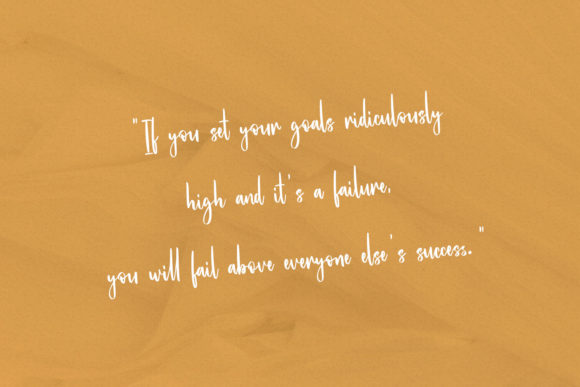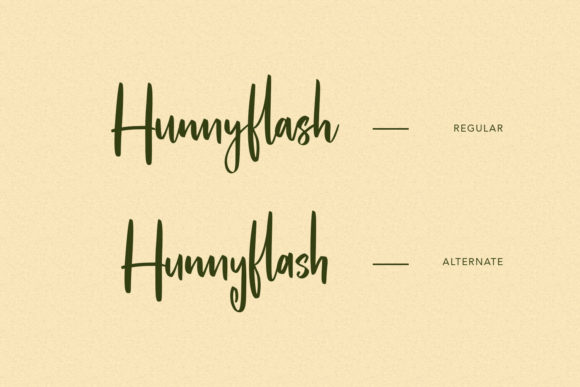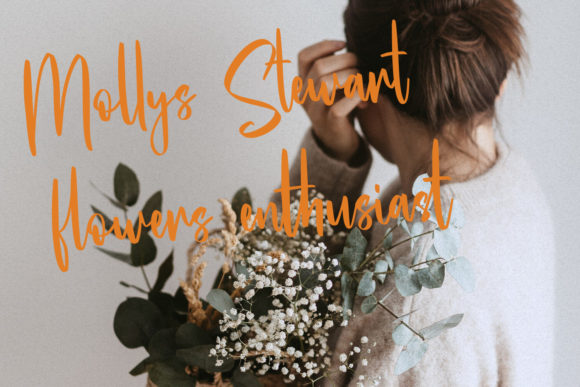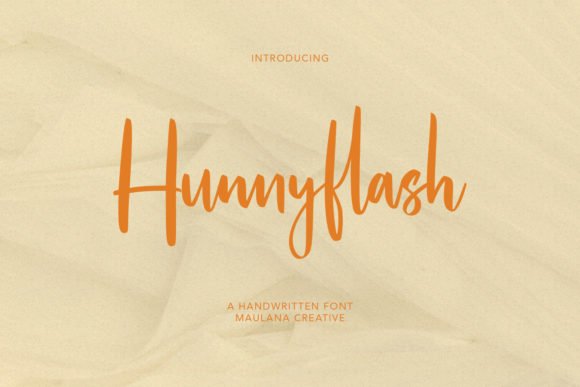
Introduction to Hunnyflash Font
Hunnyflash is a dazzling script font.
This font is neatly crafted and highly detailed Whatever the topic, this font will be a wonderful asset to your font library, as it has the potential to enhance any creation.
Hunnyflash Font offers exceptional quality and versatility, making it a valuable addition to your design toolkit. Whether you’re creating for personal projects or commercial use, Hunnyflash Font delivers professional results.